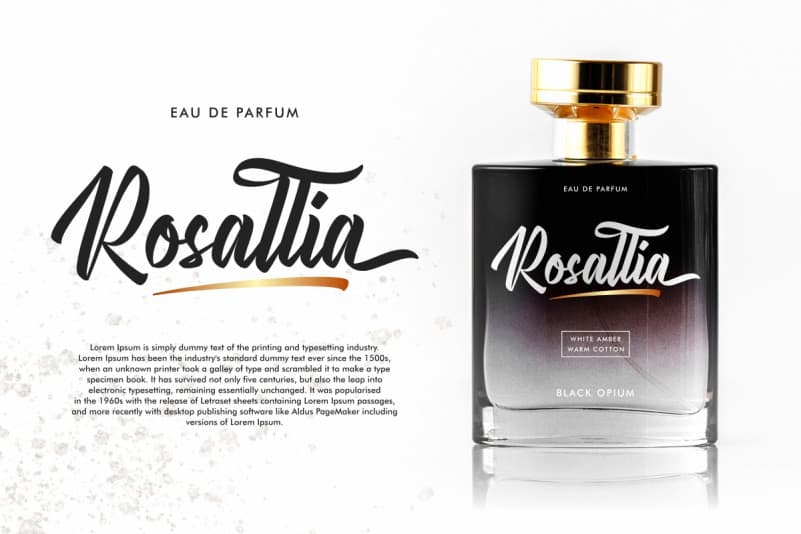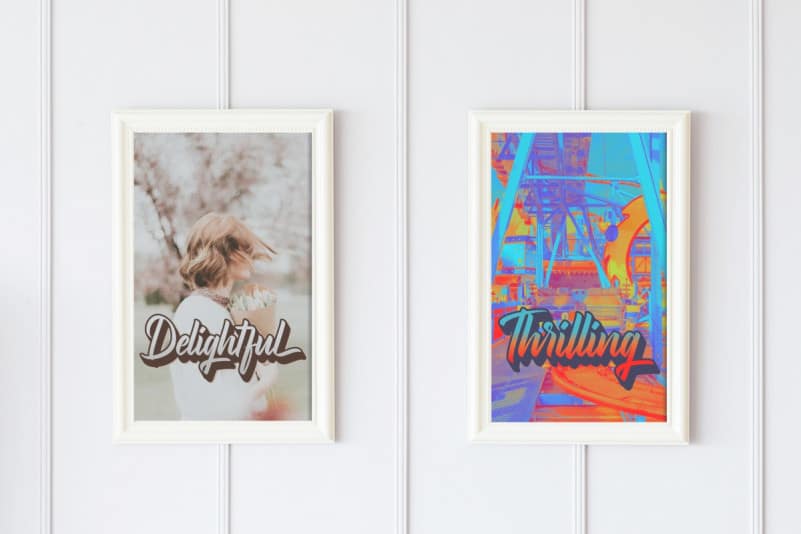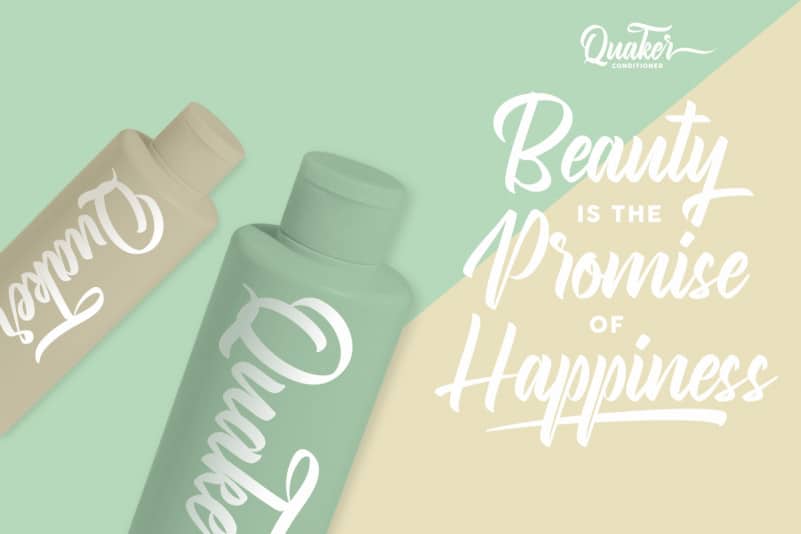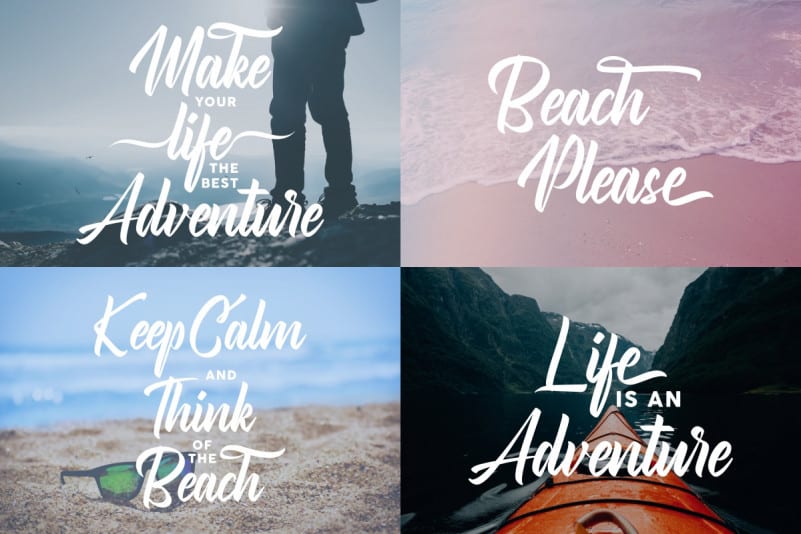
Fairleaders Brush Font
Fairleaders Brush Font will be awesome for many projects (some require extended license) including : branding, logo, stationery, business card, signage, flyer, brochure etc. The theme style of the font is elegant, luxury, old school, sport, vintage, stylish, sophisticated and classic brush style. The font will be match for this typeface: wedding, events, real estate, promotion, sport team, florist, gardening, makeup artist, travel, hotel, musician etc